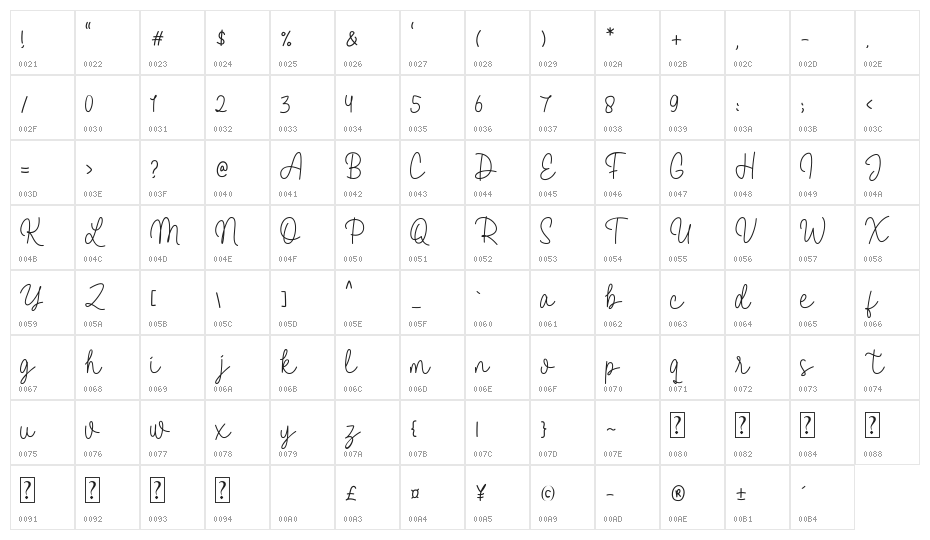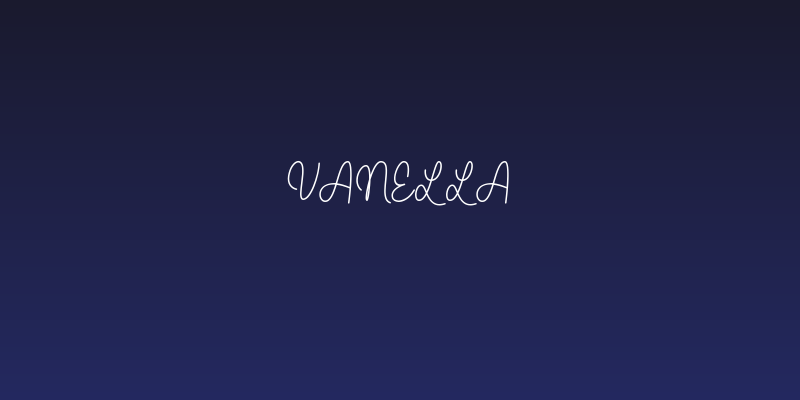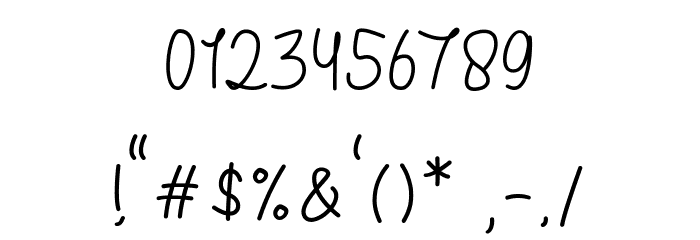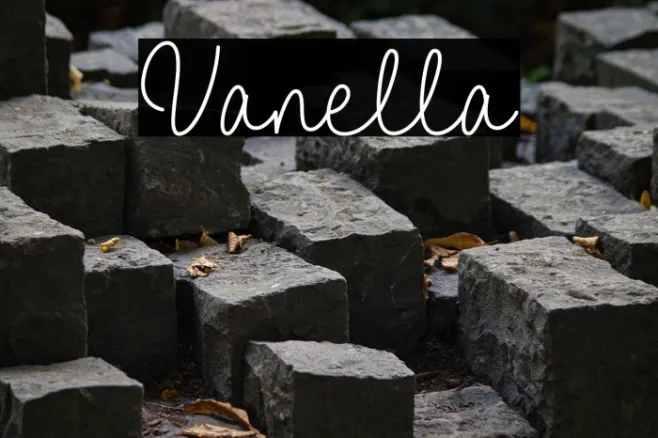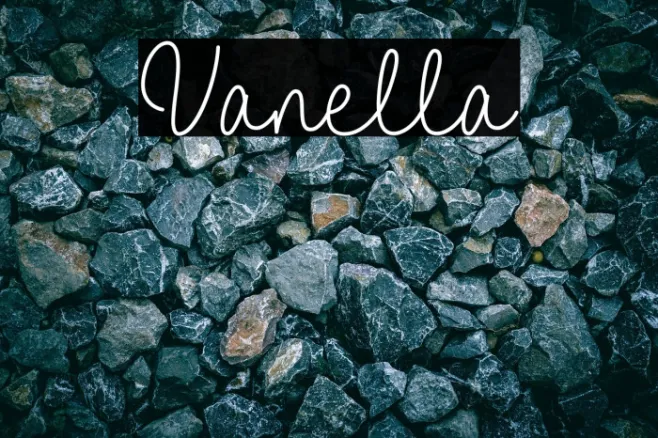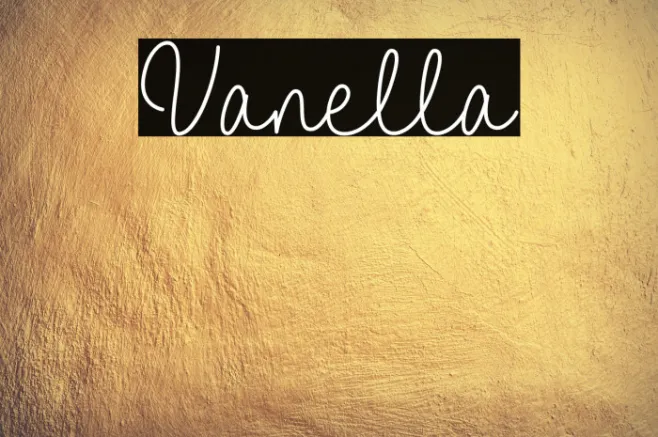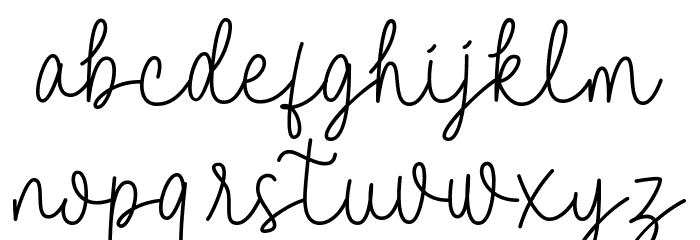
Vanella Font
Vanella Description
This font features a flowing, cursive style that mimics natural handwriting, offering a personal and elegant touch. The characters are connected, creating a seamless and fluid appearance. The strokes are consistent in width, providing a uniform look across all letters. The uppercase letters are slightly larger and more pronounced, while the lowercase letters maintain a smooth and rounded form. Numbers and special characters are designed to match the overall aesthetic, ensuring cohesion throughout. This font is ideal for projects that require a personal, handwritten feel.
| Overall Style | Elegant, Personal |
| Use Case | Logos, Invitations, Personal notes |
| Proposed Projects | Ideal for wedding invitations, personal branding, greeting cards, and any project needing a personal touch. |